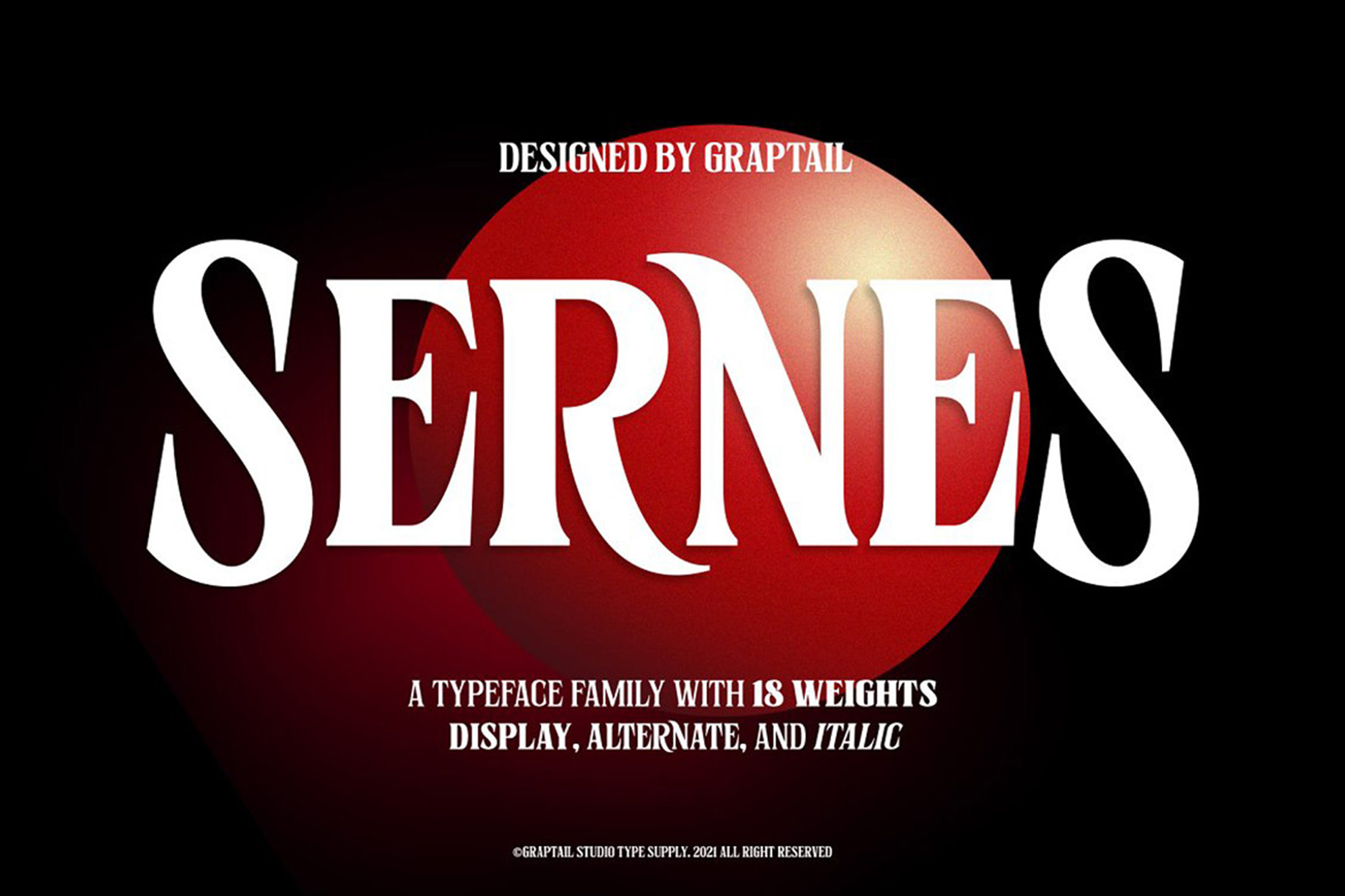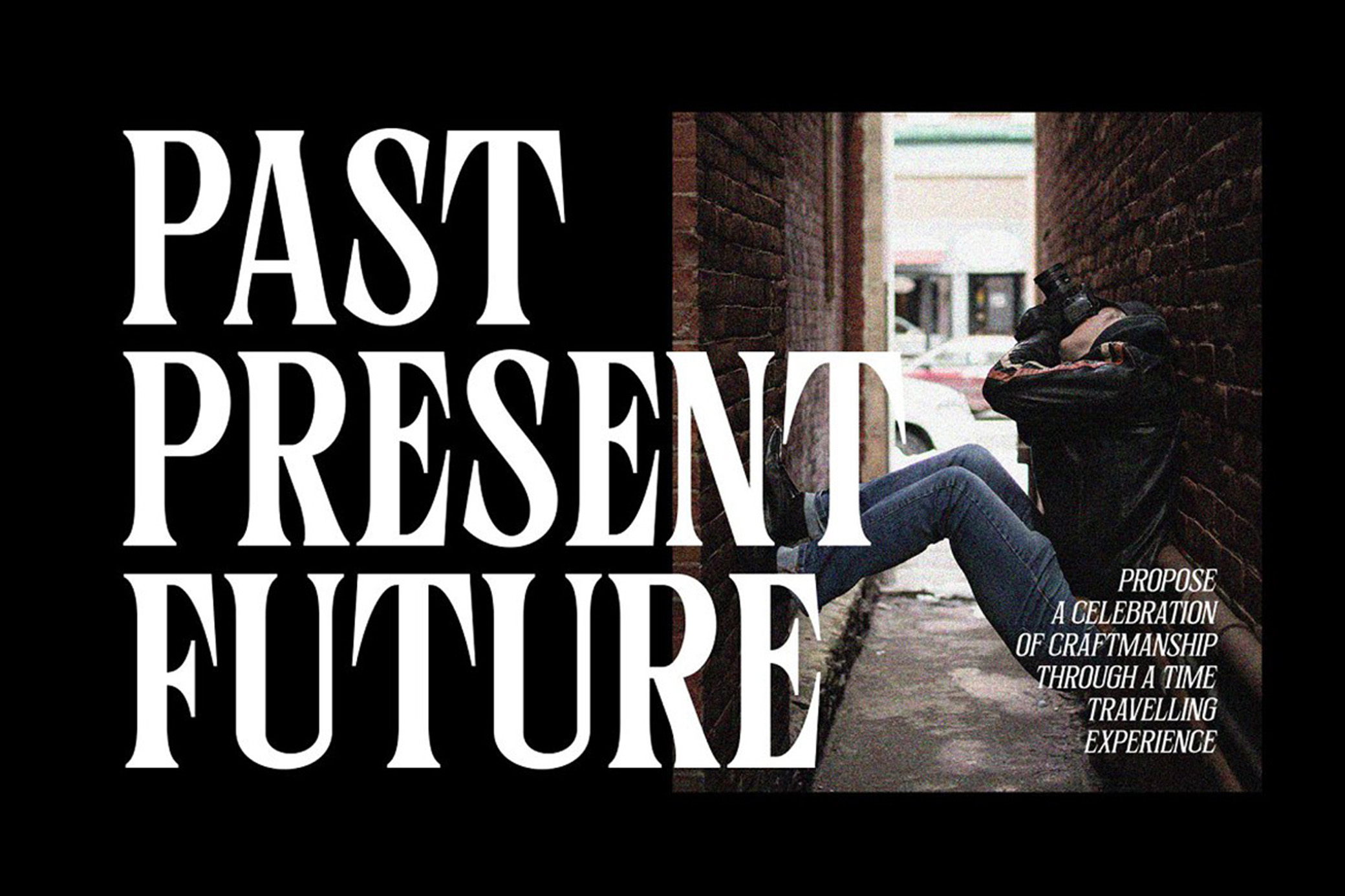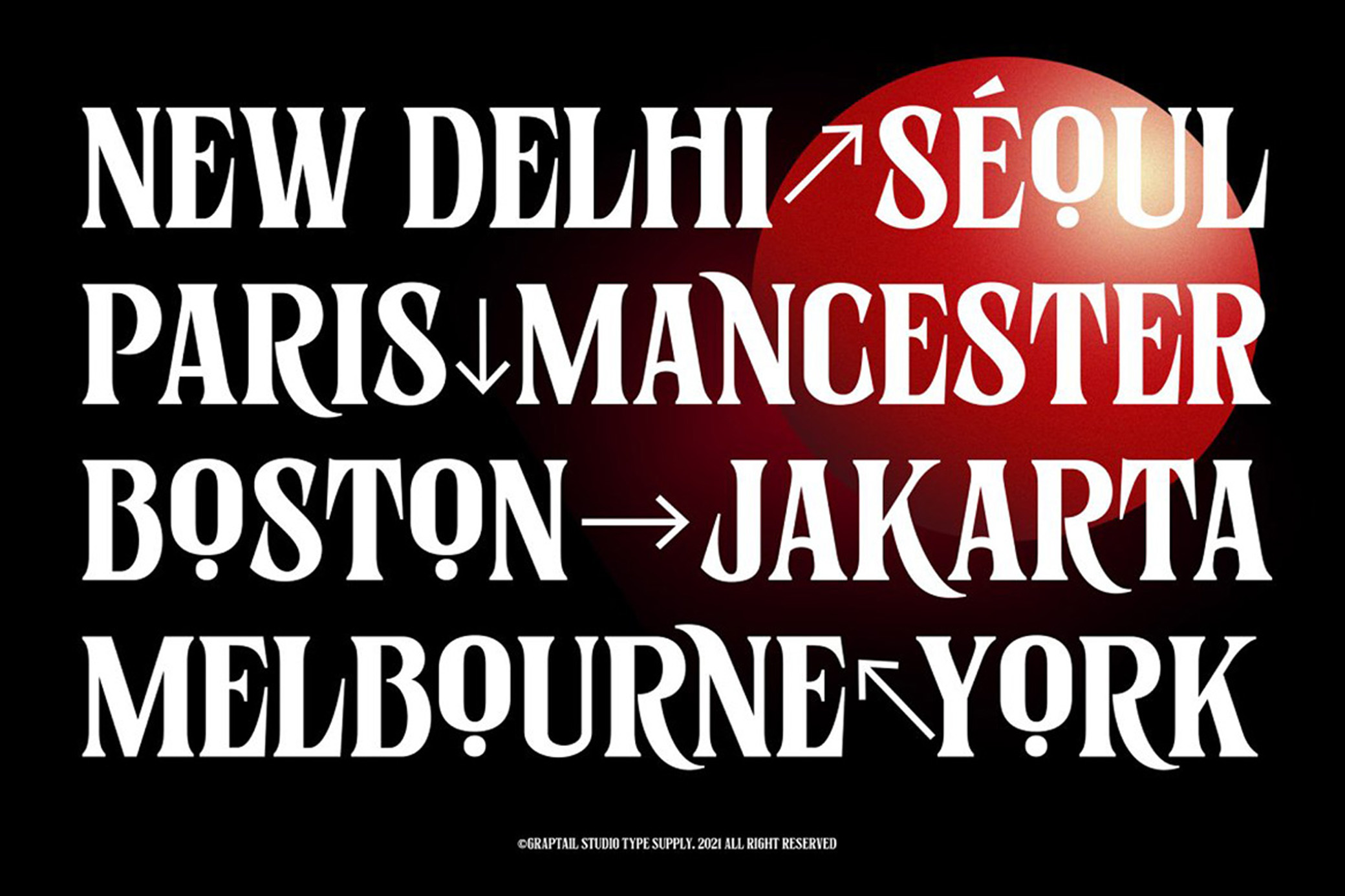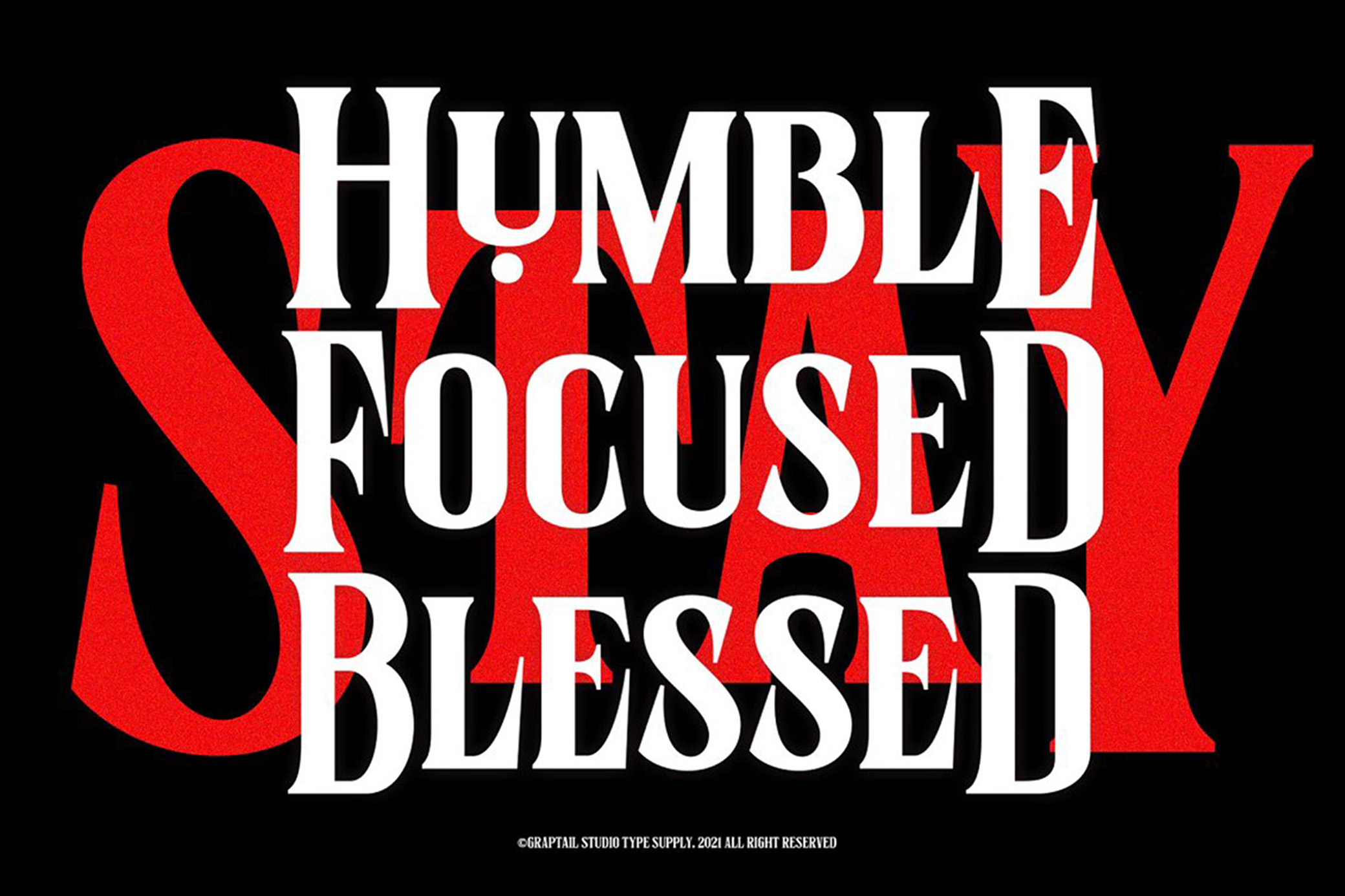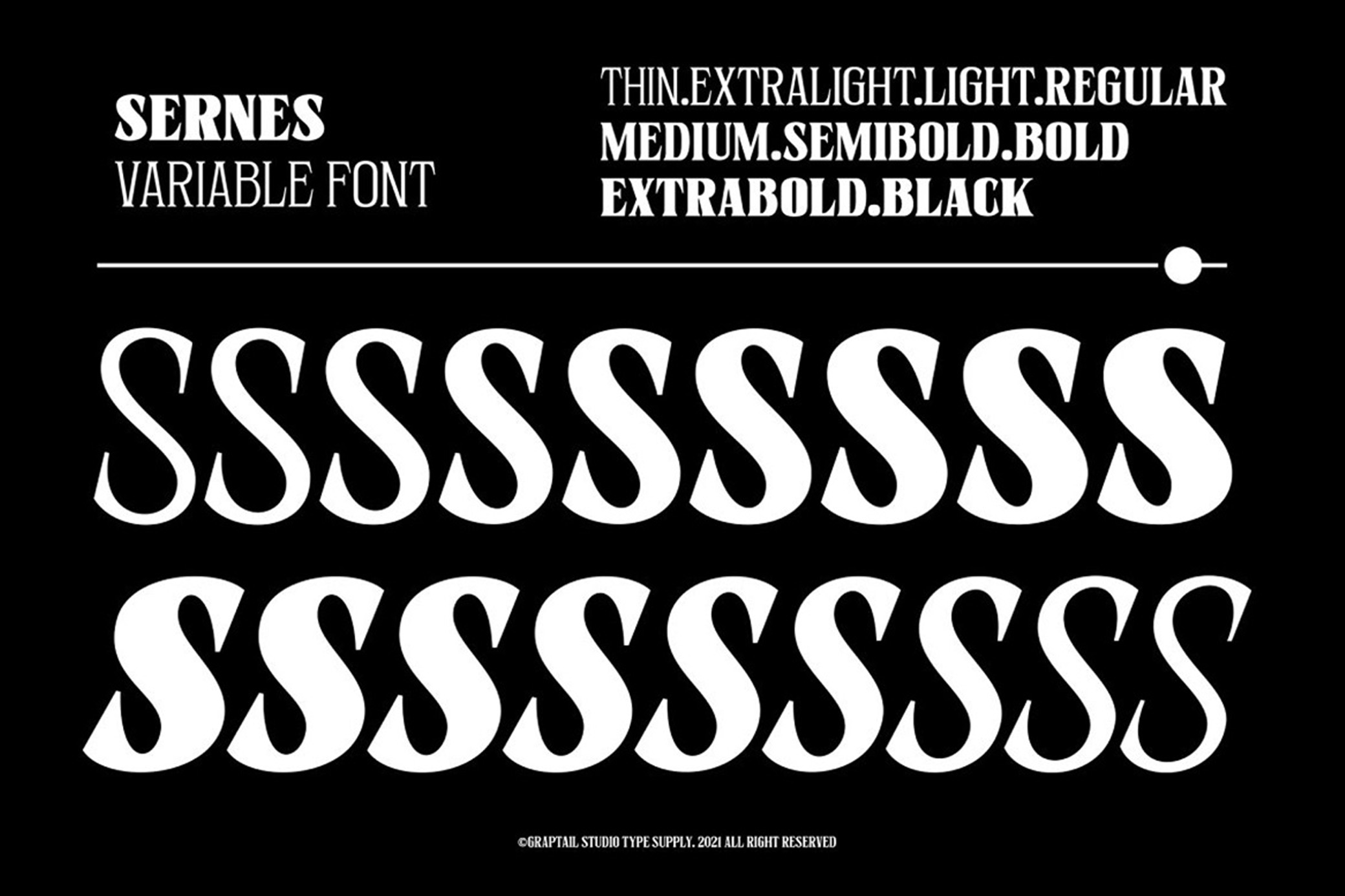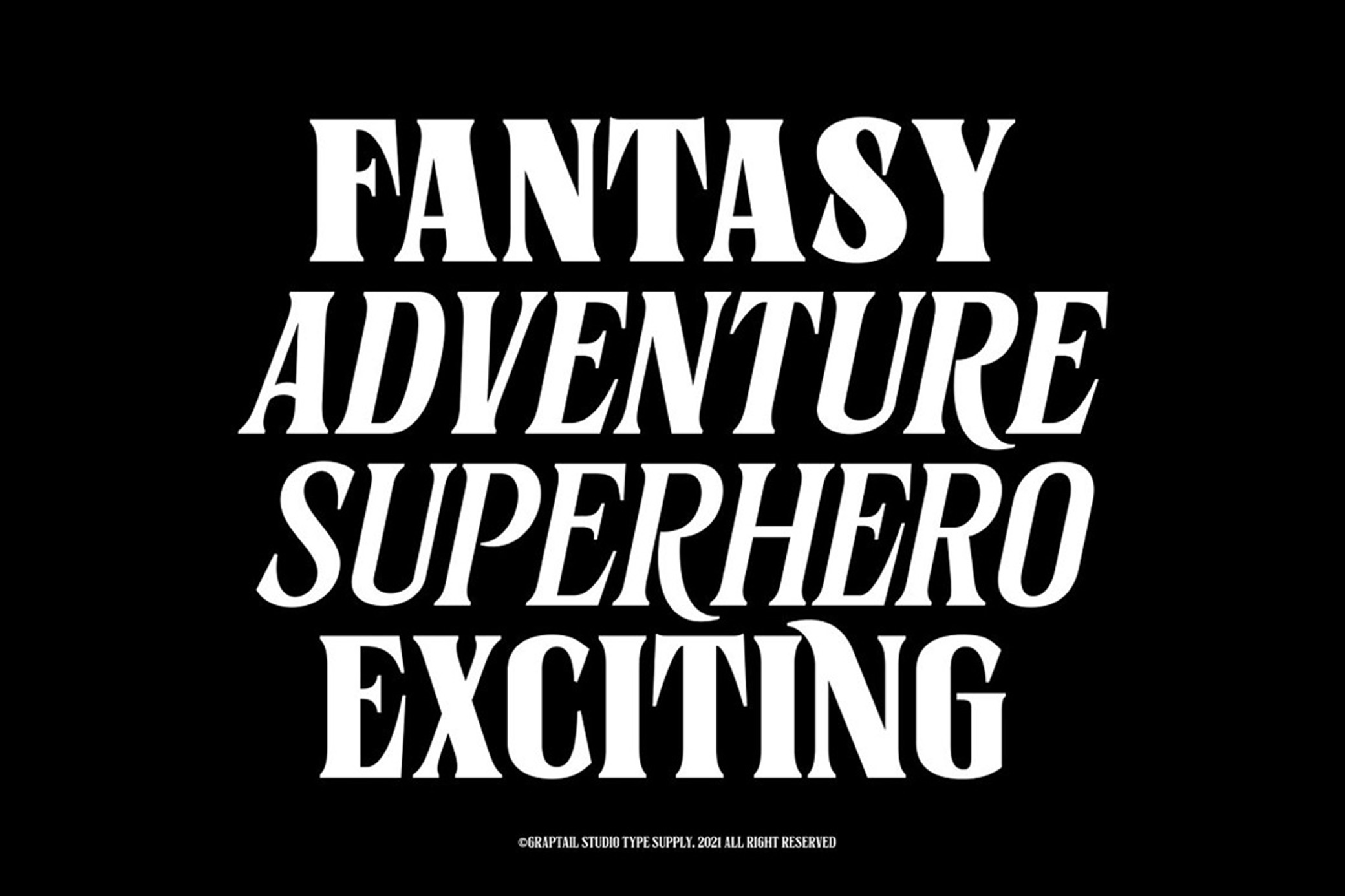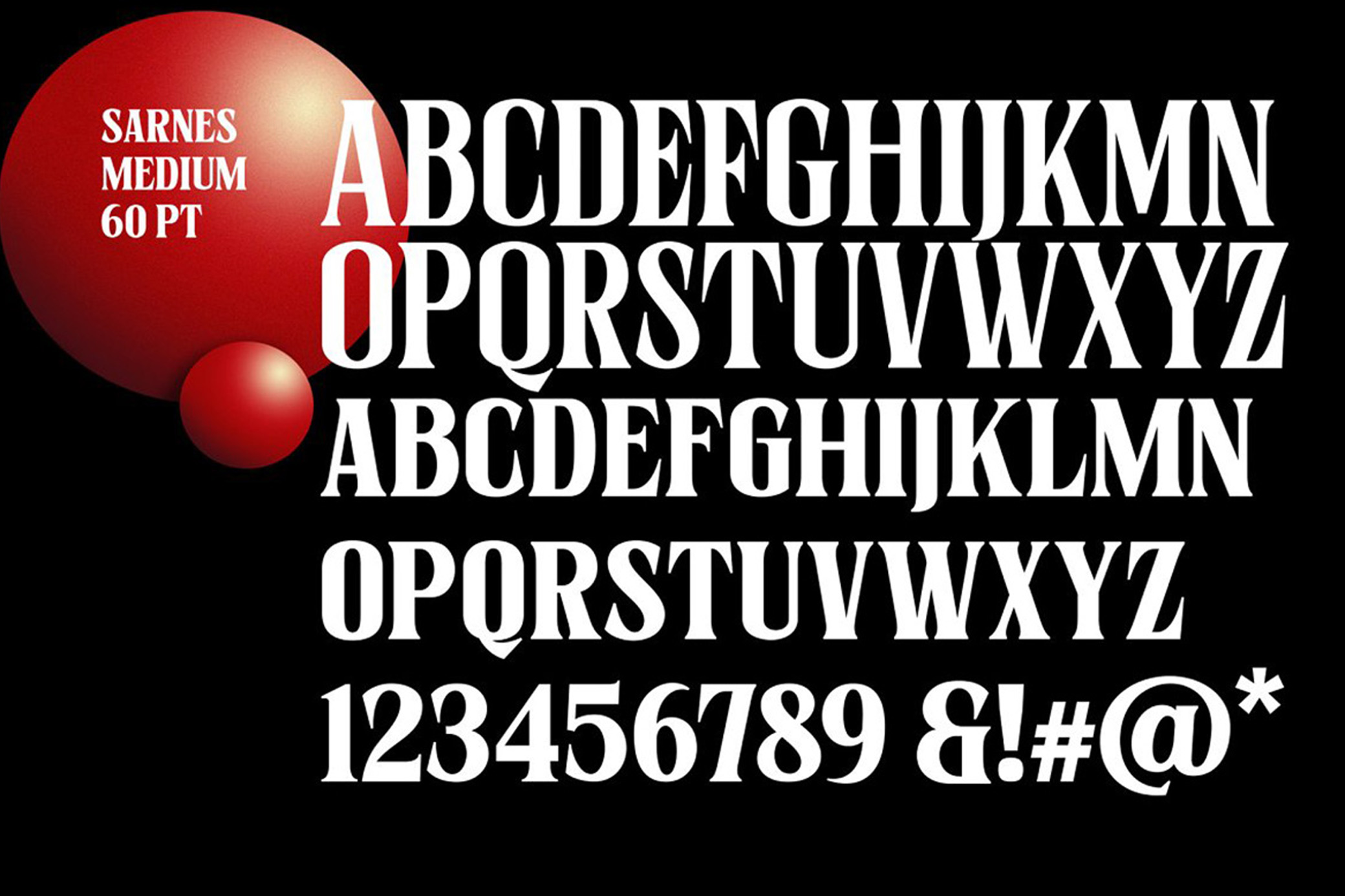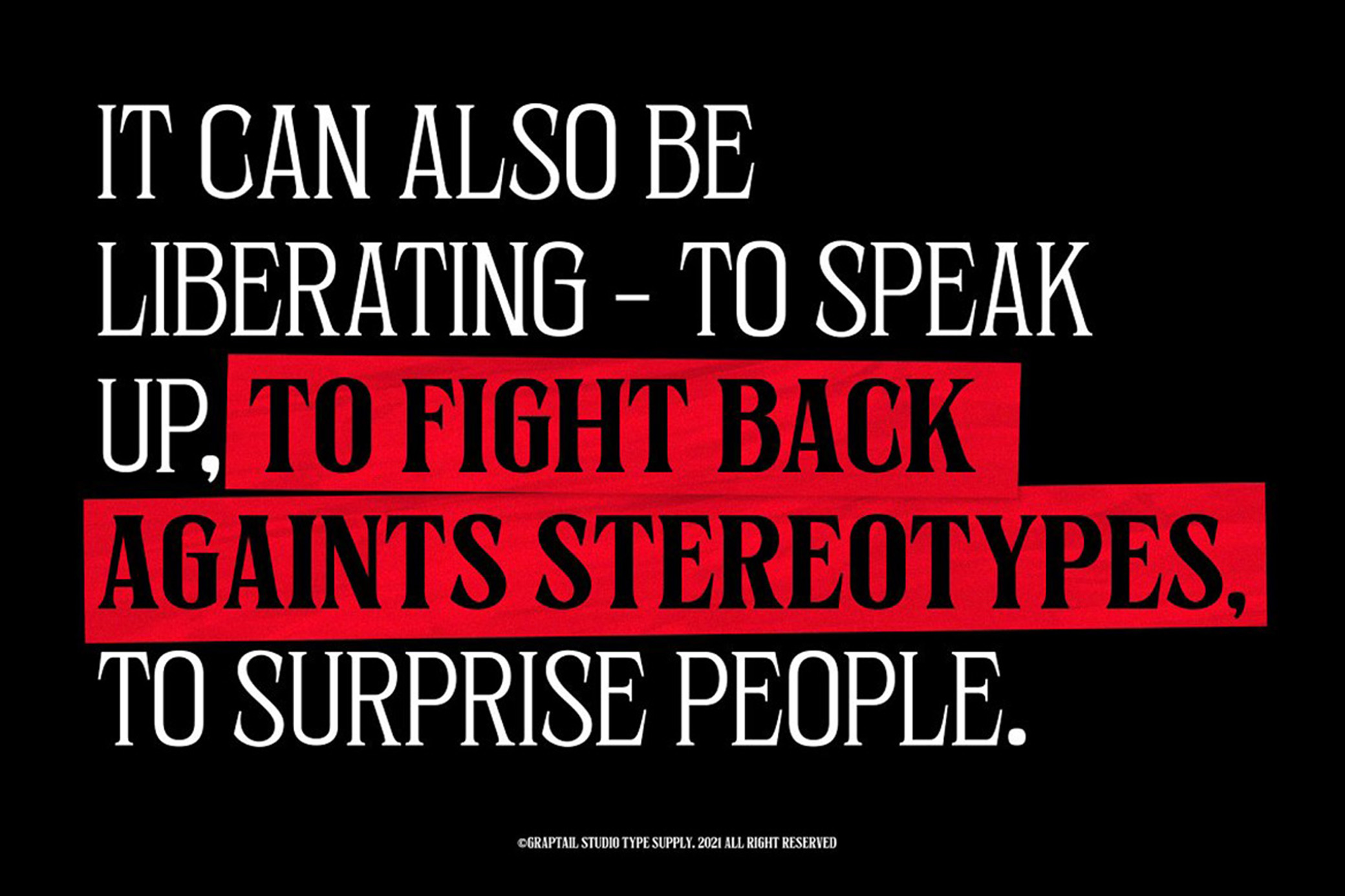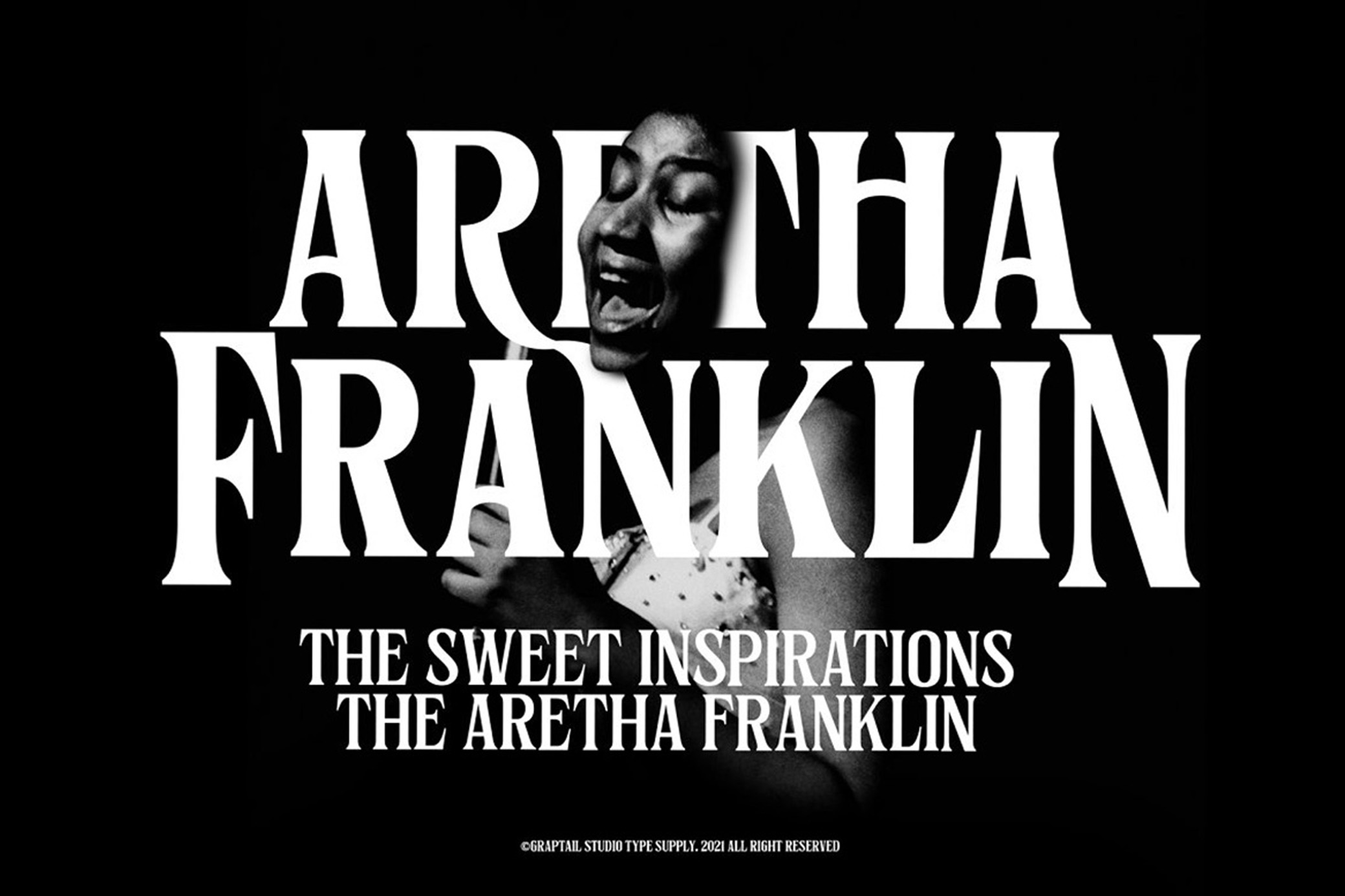
Sernes — Display Font
Imagine you're in Hawkins, Indiana, the sky is dark, and the only light comes from a flickering neon sign. You can almost hear the eerie soundtrack in the background as something strange starts to emerge — it's the Sernes typeface.
Inspired by the iconic letterforms of "Stranger Things," (we think you get it by this point) Sernes brings a touch of the Upside Down to your designs, with 18 different weights, including display, alternate, and italic styles. With this variable font, you can channel that retro, supernatural vibe into your own projects. It's like Eleven's telekinetic powers — bold, dynamic, and impossible to ignore. Whether you're crafting a vintage-inspired poster, a bold brand logo, or just want your headlines to stand out with a touch of nostalgia, Sernes is a perfect choice.